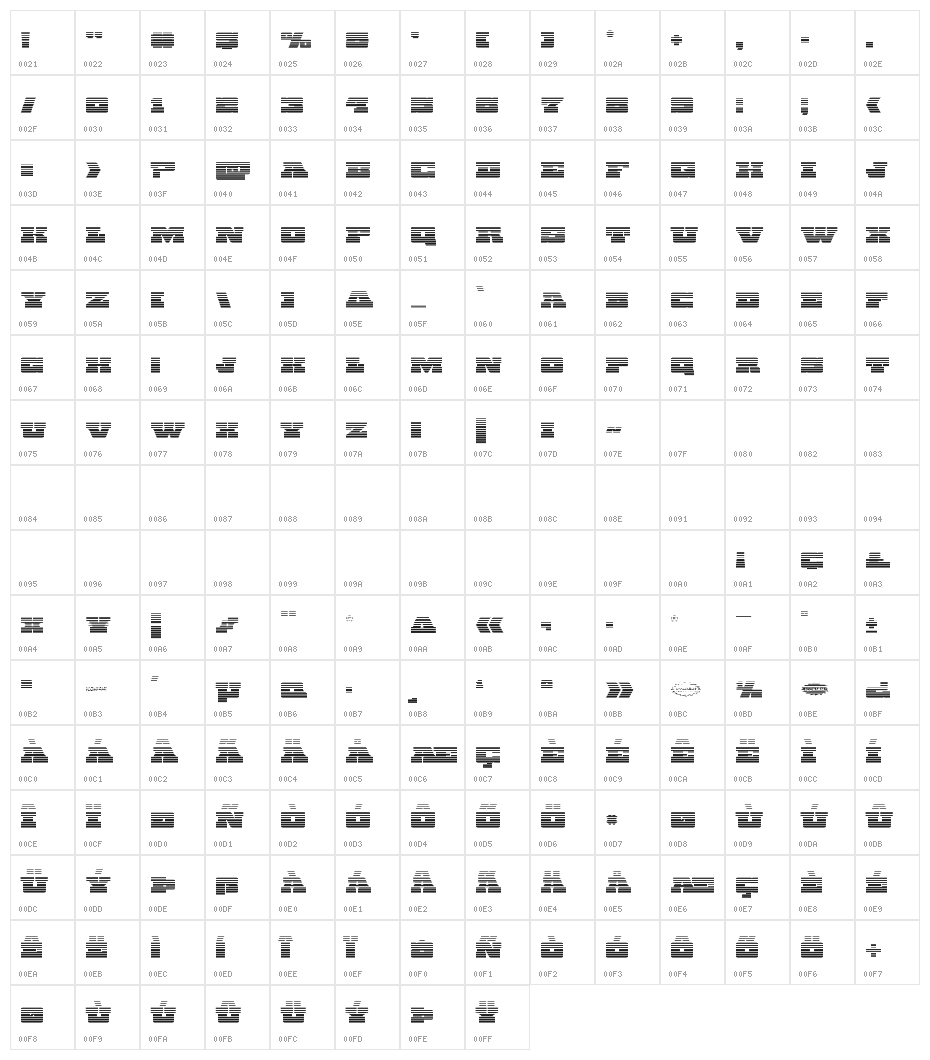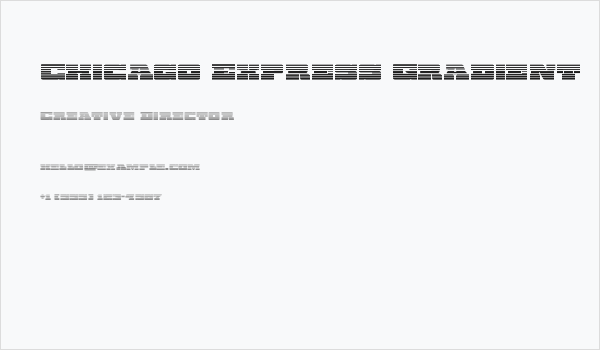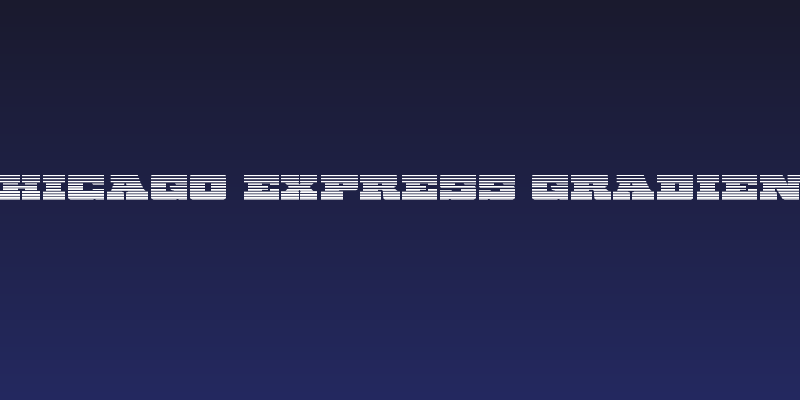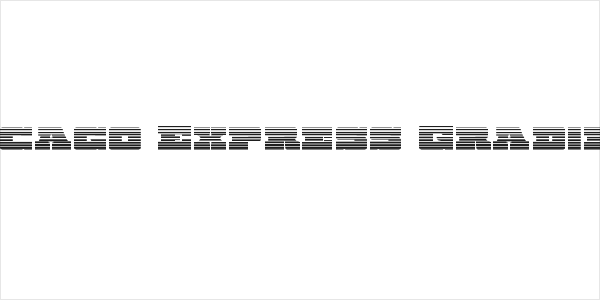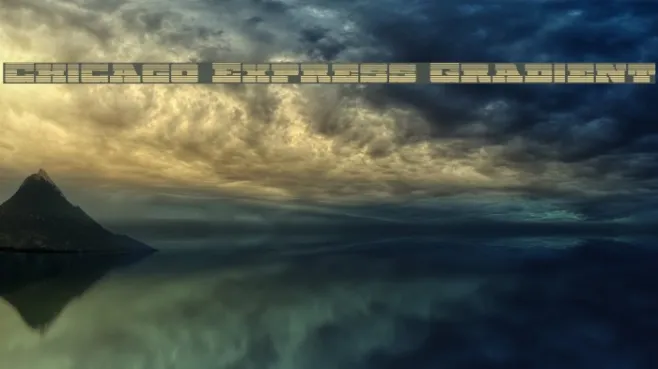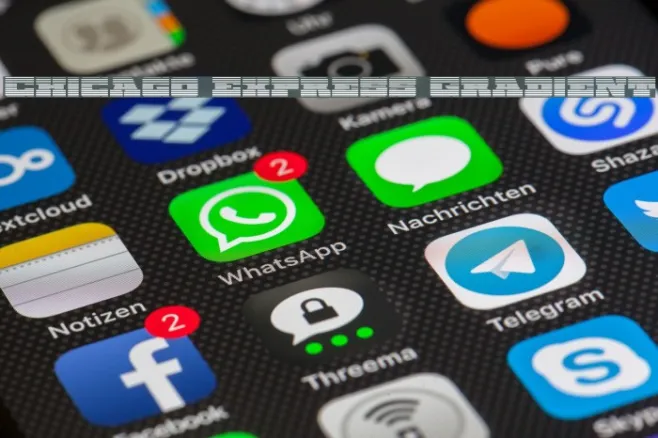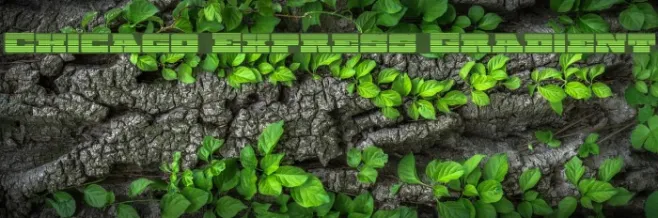
Chicago Express Gradient Font
Chicago Express Gradient Description
This font features a bold, dynamic design with a distinct horizontal line pattern that creates a sense of movement and energy. The characters are blocky and geometric, with each letter and number having a consistent width. The horizontal lines give the font a unique, futuristic appearance, making it stand out in any design. The uppercase and lowercase letters maintain the same stylistic elements, ensuring uniformity across different text cases. The special characters are designed with the same attention to detail, integrating seamlessly with the rest of the font. This font is ideal for projects that require a modern and eye-catching aesthetic.
| Proposed Projects | Ideal for branding, posters, album covers, and any design needing a modern, energetic feel. |